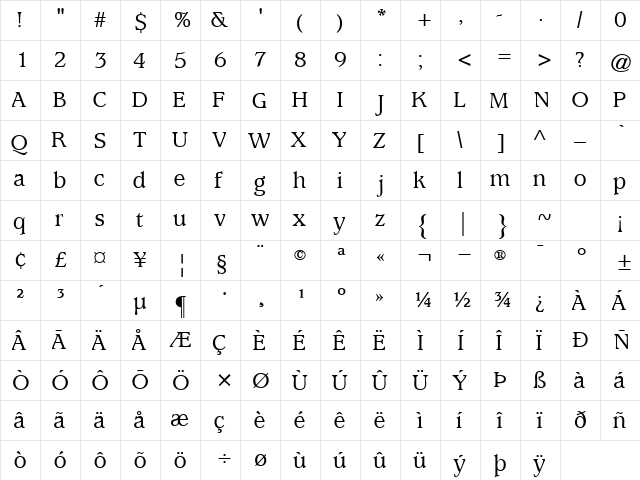
ExpositionMediumSSK Regular
Design Context for ExpositionMediumSSK Typeface
ExpositionMediumSSK offers clean, dependable letterforms without strong stylistic allegiance, making it a practical choice for designers who need flexibility.
Pro Tip: Use ExpositionMediumSSK in both headline and body roles to test its range before committing to a single application.